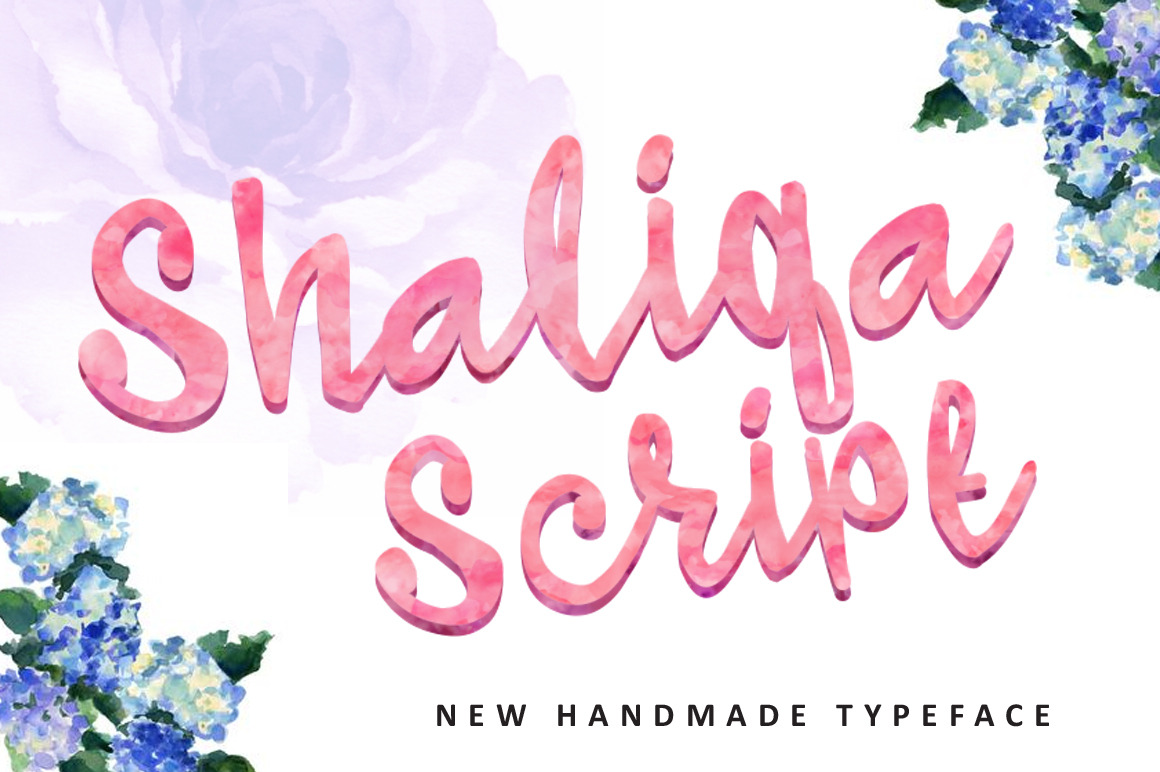
Shaliqa Script + Bonus
Shaliqa Script Font + Bonus is perfect for elegant branding, sophisticated wedding invitations, luxury fashion labels, refined beauty products, graceful social media graphics, upscale greeting cards, boutique signage, intimate stationery, artistic portfolios, feminine lifestyle brands, elegant editorial design, and charming personal branding projects.
What makes Shaliqa Script + Bonus exciting is its graceful sophistication that captures the essence of refined femininity and timeless elegance through flowing letterforms that dance with natural beauty and contemporary charm. This exquisite typeface collection embodies the perfect harmony of artistic expression and commercial functionality, combining handcrafted authenticity with polished refinement that resonates with audiences seeking genuine elegance and personal touch. The font's organic character and bonus elements create comprehensive design possibilities while maintaining the readability essential for professional applications. Its enchanting personality makes it perfect for brands that want to communicate grace, authenticity, and the transformative power of elegant design and personal expression.
The Shaliqa Script + Bonus collection includes the main script font with natural variations, plus bonus decorative elements, elegant swashes, and complementary design assets. The character set incorporates stylistic alternates, flowing ligatures, and graceful flourishes that enhance the font's sophisticated character and provide designers with complete elegant typography solutions for refined brand expressions.
Whether you're creating sophisticated brand identities, designing elegant marketing materials, or developing refined communications, Shaliqa Script Font + Bonus Free Download provides the comprehensive elegance your graceful projects require. This premium font collection excels in applications where sophistication and personal connection are crucial for brand positioning and audience engagement in luxury lifestyle markets. The script's elegant qualities work beautifully across packaging, stationery, and digital applications, making it an invaluable tool for designers creating memorable refined experiences. Luxury brands and sophisticated businesses choose this font collection for its ability to communicate genuine elegance while maintaining professional credibility and market appeal. The comprehensive character support includes international symbols and bonus design elements, expanding its versatility for global luxury applications and multilingual sophisticated communications. Professional designers appreciate the complete elegant package with bonus assets that enhance creative expression and functional flexibility. When you implement this exceptional script collection into your refined communications, you're selecting a complete typography solution that celebrates graceful sophistication and authentic elegance, ensuring your brand connects with discerning audiences while maintaining the refined credibility essential for success in competitive luxury markets and sophisticated industries that value genuine beauty, personal touch, and timeless elegance in their visual communication and brand identity development strategies.